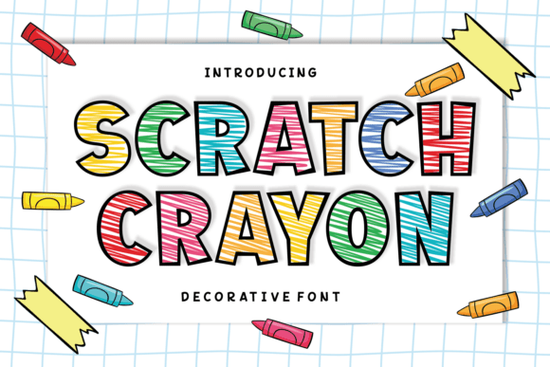
If you need a typeface that looks like it was drawn with a real wax crayon, Scratch Crayon Font delivers that handmade texture without the hassle of scanning sketches. This decorative font uses cross-hatched strokes inside bold outlines to mimic the uneven, playful pressure of a child's drawing. It works well for projects that need a warm, nostalgic feel, such as classroom printables, kids' clothing designs, or party invitations. The result is a cheerful, authentic look that helps your message stand out with personality.
What makes Scratch Crayon Font look like real crayon writing?
Most "handwritten" fonts rely on smooth curves that can feel too digital. This typeface takes a different approach by using intricate cross-hatching nested within thick outlines. The result is a tactile texture that resembles wax dragged across paper. The strokes vary in density, creating that authentic "drawn-from-scratch" appearance. When you print this on textured cardstock or use it in a digital mockup, the details hold up well, giving your text a genuine craft aesthetic rather than a flat, computer-generated look. The visual depth adds character that simple outline fonts often miss.
Which projects work best with a scratchy crayon style?
This font shines in designs where personality and warmth matter more than formal elegance. Here are some practical use cases for creators:
- Classroom materials: Teachers can create engaging worksheets, name tags, and bulletin board headers that feel friendly and approachable for young students.
- Children's apparel: Print-on-demand sellers can use this for t-shirts, tote bags, and onesies featuring playful quotes or custom names.
- Event stationery: Birthday invitations, baby shower signs, and party favors benefit from the high-energy, festive vibe.
- Branding for kid-focused businesses: Small businesses like bakeries, toy shops, or tutoring centers can use this in logos and social media graphics to signal a fun, family-friendly brand.
- Digital products: Use the font in coloring book covers, sticker sheets, or planner stickers to add a hand-crafted touch that buyers love.
Remember to test readability at smaller sizes. Because of the detailed texture, this font performs best at larger scales where the cross-hatching remains clear.
Does this font include numbers, punctuation, and multilingual support?
Yes, the toolkit covers everything you need for complete designs. You get a full set of uppercase and lowercase letters, along with numerals and standard punctuation marks. This means you can write dates, prices, and full sentences without switching to a backup font. The multilingual support extends the reach of your designs, allowing you to create materials for diverse audiences. Whether you are making a bilingual classroom poster or a greeting card for an international customer, the character set has you covered.
How do I pair a bold crayon font with other typefaces?
Since Scratch Crayon Font has a heavy, textured presence, it works best as a display font for headlines and short phrases. Pair it with a clean, simple sans-serif for body text to keep your design balanced. The contrast between the rough crayon strokes and smooth supporting text helps your message stand out without overwhelming the reader. If you enjoy this style, you might want to browse other decorative fonts with similar hand-drawn textures to build a versatile collection. For projects that require a different kind of whimsy, pairing this crayon style with a butterfly monogram font can add a delicate touch to personalized gifts.
Can I use this font for sublimation and vinyl cutting?
Crafters often ask about compatibility with cutting machines and heat presses. The bold outlines of this font make it a solid choice for vinyl cutting, provided you size the text large enough to prevent weeding issues with the inner texture. For sublimation, the cross-hatched details transfer beautifully onto mugs, tumblers, and fabric, especially when you use high-resolution exports. If you plan to cut this font, consider using the "weld" or "flatten" function in your software to merge the inner strokes with the outline, which can simplify the cutting path while preserving the crayon look.
Why choose a textured font over a flat handwritten style?
Flat handwritten fonts are useful, but they can sometimes blend into the background. A textured typeface like this one adds depth and dimension instantly. The visual noise of the crayon strokes draws the eye and evokes an emotional response tied to creativity and childhood. This makes your designs feel more personal and less mass-produced. For small business owners, that sense of authenticity can help build trust with customers who value handmade aesthetics. It signals that care went into the design, even when you are using a digital tool. You can check the full character set and license details for Scratch Crayon Font on Creative Fabrica to ensure your usage complies with the terms.